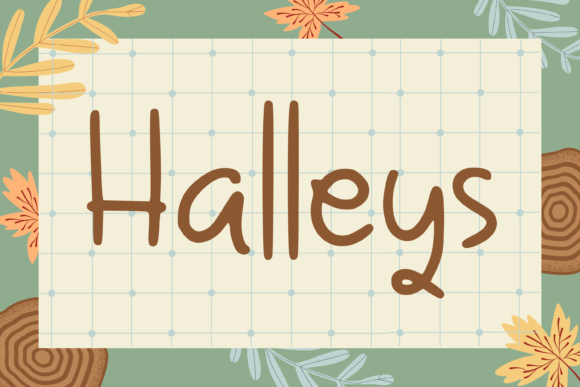
Halleys: The Elegant Handwritten Font That Elevates Your Creative Vision
There’s a particular kind of magic that happens when a design element doesn’t just sit on the page, but seems to live and breathe within it. That’s the feeling you get with Halleys, a handwritten font that manages to be both delicate and full of character. It’s not just another script font; it’s a tool for adding a layer of authentic, flowing elegance to your work. The moment you start typing with Halleys, you notice its well-balanced characters and the natural, rhythmic flow of the letterforms. This isn’t a font that shouts for attention; it invites the viewer in, creating an immediate sense of warmth and sophistication.
Understanding the Personality of Halleys
At its core, Halleys is a premium font designed with a keen eye for detail and usability. It belongs to the handwritten font family, but it avoids the pitfalls of being overly casual or difficult to read. Its elegance comes from the smooth, connected strokes and the thoughtful spacing between letters. This creates a beautiful visual harmony, making it a versatile creative font for a wide range of applications. Think of it as the typography equivalent of a well-tailored suit—it’s formal enough for professional contexts, yet it carries a personal, human touch that feels approachable and genuine.
The visual personality of Halleys can be described as graceful, flowing, and refined. It has a modern typography sensibility, meaning it doesn’t feel dated or overly ornate. This makes it an excellent choice for contemporary brand identity projects. When used in a logo design, for instance, Halleys can communicate creativity, attention to detail, and a personalized approach. It’s a typeface that works beautifully for brands that want to appear both professional and personable, from boutique studios and artisanal food brands to high-end consultants and lifestyle bloggers.
Where Halleys Truly Shines: Practical Applications
The true test of any design asset is its performance across different mediums. Halleys excels in this regard, offering practical value far beyond its initial aesthetic appeal. Its flowing nature makes it a standout choice for projects where a human touch is paramount.
- Branding & Logo Design: Use Halleys as the primary typeface for a brand name to establish an elegant and memorable identity. It pairs exceptionally well with a clean sans serif font for body text, creating a sophisticated font pairing that balances personality with clarity.
- Editorial & Publishing: In the world of publishing, Halleys is a gem for editorial design. It’s perfect for chapter titles, pull quotes, or magazine mastheads where you want to add a touch of artistry without sacrificing the overall design’s cohesion. Its readability at larger sizes makes it ideal for these display purposes.
- Packaging & Product Design: For packaging design, especially for artisanal goods, cosmetics, or specialty foods, Halleys can convey quality and care. It suggests a product that has been crafted with attention, not just mass-produced. Imagine it on a candle label or a boutique chocolate box—it immediately elevates the perceived value.
- Digital & Web Presence: In web design, Halleys can be used strategically for headings, hero text, or call-to-action buttons to draw the eye and inject personality. It’s equally effective in social media graphics, where a single, beautifully set word in Halleys can stop a user from scrolling and make a post feel more curated and intentional.
- Personal & Commercial Projects: For entrepreneurs and small business owners, this font is a workhorse. Use it for business cards, thank-you notes, email signatures, and presentation templates to maintain a consistent and professional brand image. For crafters and hobbyists, it’s perfect for creating custom invitations, quote art, or personalized stationery that feels special and unique.
Integrating Halleys into Your Design Workflow
Adopting a new font like Halleys into your projects is about more than just liking how it looks. It’s about understanding its role and ensuring it serves the project’s goals. Here’s some practical guidance for working with this typeface.
First, always evaluate the project fit. Halleys is a display font at heart. Its primary strength is in headlines, logos, and short bursts of impactful text. Using it for long paragraphs of body copy would be a readability challenge. The key is to use it where its elegance can be appreciated without causing eye strain. A good rule of thumb is to contrast it with a highly legible serif font or sans serif font for longer text.
Next, spend time on font pairing. The right partner can make Halleys sing. For a classic, trustworthy feel, pair it with a traditional serif like Garamond or Baskerville. For a more modern, minimalist aesthetic, a geometric sans serif like Montserrat or Lato creates a beautiful balance. Test different combinations at various sizes to see what creates the best visual hierarchy and readability for your specific layout.
Finally, consider the practicalities. Always check the licensing details included with your commercial font purchase to ensure it covers your intended use, whether for a client’s logo or your own product line. Review the full character set; premium fonts like Halleys often include stylistic alternates, ligatures, and multilingual support that can add even more nuance to your designs. Take the time to explore these features in your design software—they can be the difference between a good design and a great one.
In the end, Halleys is more than just a pretty script font. It’s a versatile tool for any designer, marketer, or creator looking to add a layer of refined, human elegance to their work. By understanding its strengths and applying it thoughtfully, you can make your most creative ideas not just come alive, but resonate with a lasting sense of style and sophistication. It’s the kind of typeface that doesn’t just decorate a page—it helps tell a story.